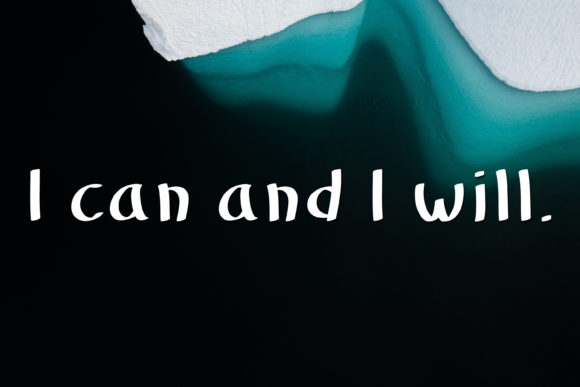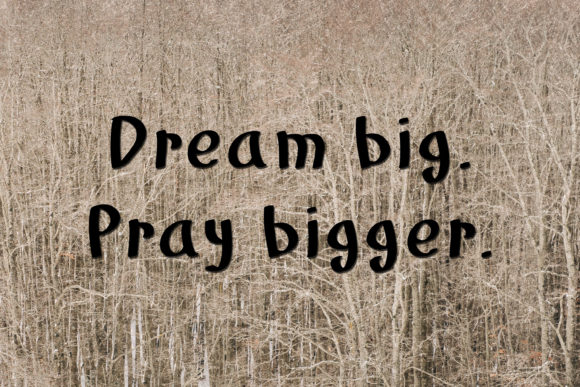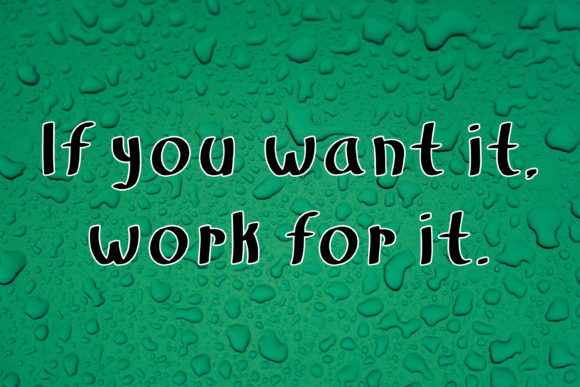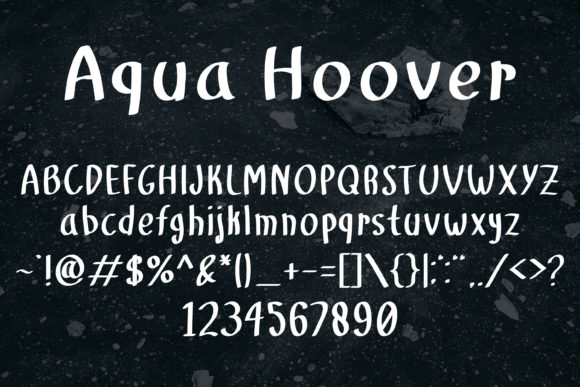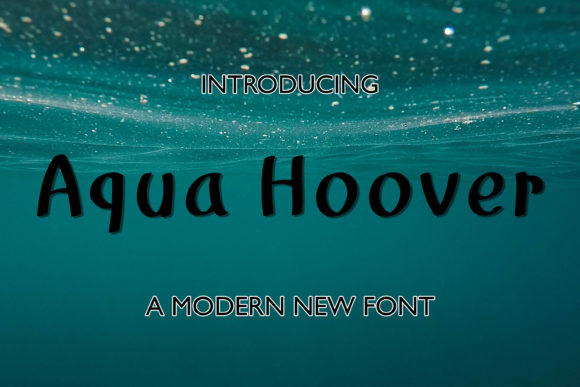
Aqua Hoover Font: Elevate Your Designs with a Modern and Adaptable Display Font
In the world of typography, a font can make or break a design. A well-chosen font can elevate a creation from ordinary to extraordinary, while a poorly chosen one can detract from the overall impact. For designers and crafters looking to add a touch of modernity and sophistication to their work, the Aqua Hoover font is an excellent choice. This modern, simple, and adaptable display font is perfect for a wide range of projects, from branding and advertising to packaging and digital media.
The Versatility of Aqua Hoover Font
One of the standout features of Aqua Hoover font is its incredible versatility. No matter the topic or theme of your project, this font is sure to be an asset to your font library. Whether you’re working on a sleek and modern website, a bold and eye-catching poster, or a stylish and sophisticated logo, Aqua Hoover font is the perfect choice. Its clean lines, simple shapes, and adaptable design make it easy to pair with other fonts and design elements, ensuring a cohesive and visually appealing final product.
Modern and Simple Design
Aqua Hoover font boasts a modern and simple design that is both elegant and effective. The font’s clean lines and minimal ornamentation make it easy to read and understand, while its sleek and sophisticated aesthetic adds a touch of luxury to any design. The font’s simplicity also makes it highly legible, even at small sizes, ensuring that your message gets across clearly and effectively.
Adaptable and Flexible
Another key benefit of Aqua Hoover font is its adaptability and flexibility. The font is designed to work well in a wide range of contexts, from digital media to print materials. Whether you’re creating a website, a social media graphic, or a print advertisement, Aqua Hoover font is the perfect choice. Its flexible design also makes it easy to use in a variety of languages and scripts, ensuring that your message gets across to a global audience.
Elevate Your Designs with Aqua Hoover Font
So why choose Aqua Hoover font for your next design project? For starters, the font’s modern and simple design ensures that your work will look sleek and sophisticated, even in a crowded and competitive marketplace. Additionally, the font’s adaptability and flexibility make it easy to use in a wide range of contexts, ensuring that your message gets across clearly and effectively. Perhaps most importantly, however, Aqua Hoover font has the potential to elevate any creation, adding a touch of luxury and sophistication that sets it apart from the rest.
Aqua Hoover font is perfect for designers and crafters looking to add a touch of modernity and sophistication to their work. Whether you’re a seasoned professional or just starting out, this font is an excellent choice for anyone looking to elevate their designs and take their work to the next level. With its clean lines, simple shapes, and adaptable design, Aqua Hoover font is the perfect addition to any font library.
Key Features of Aqua Hoover Font
- Modern and simple design
- Adaptable and flexible
- Clean lines and minimal ornamentation
- Highly legible, even at small sizes
- Perfect for a wide range of projects, from branding and advertising to packaging and digital media
- Easy to pair with other fonts and design elements
In conclusion, Aqua Hoover font is an excellent choice for designers and crafters looking to add a touch of modernity and sophistication to their work. With its clean lines, simple shapes, and adaptable design, this font is perfect for a wide range of projects, from branding and advertising to packaging and digital media. Whether you’re a seasoned professional or just starting out, Aqua Hoover font is the perfect addition to any font library, and is sure to elevate any creation to new heights.